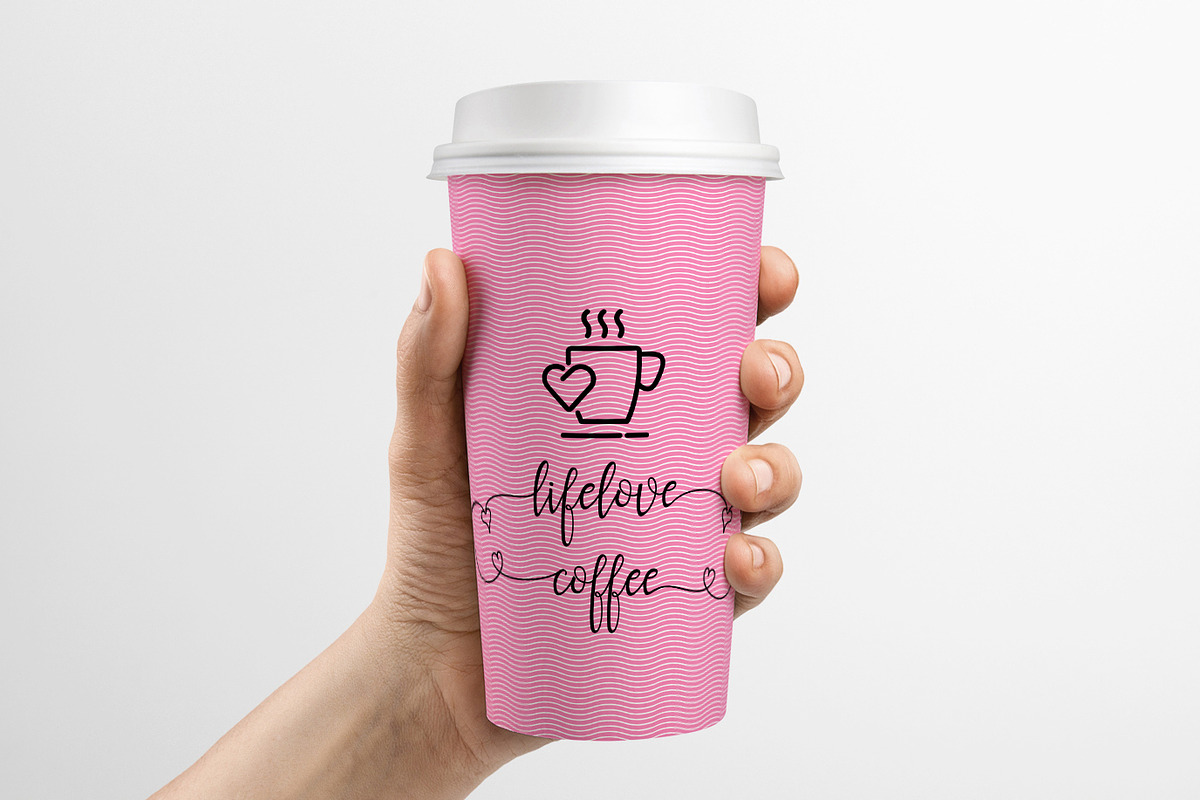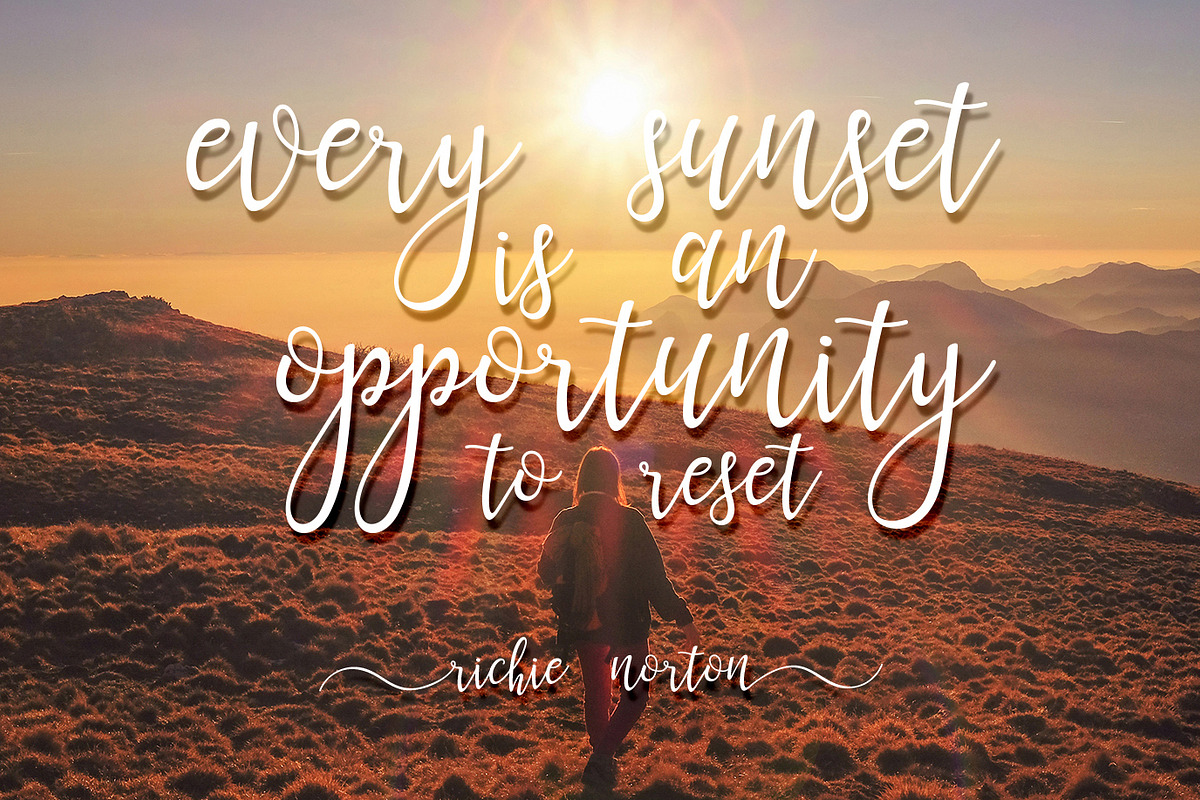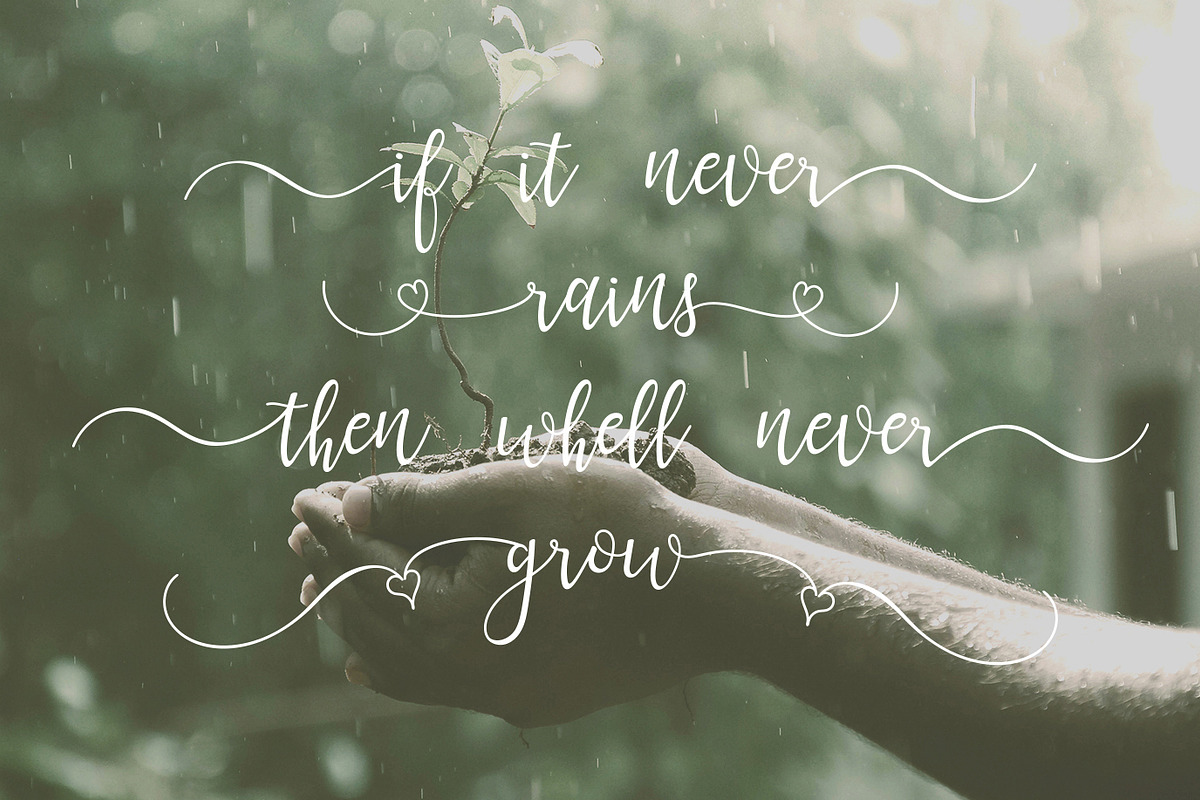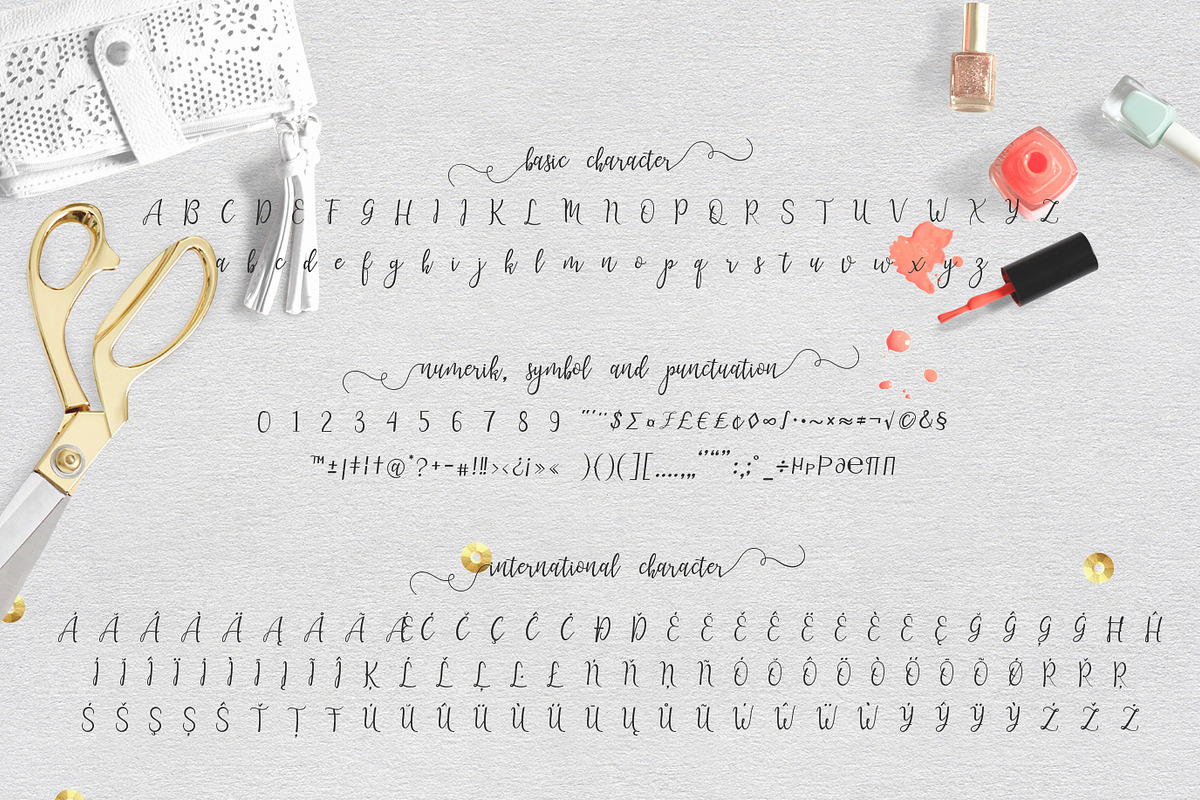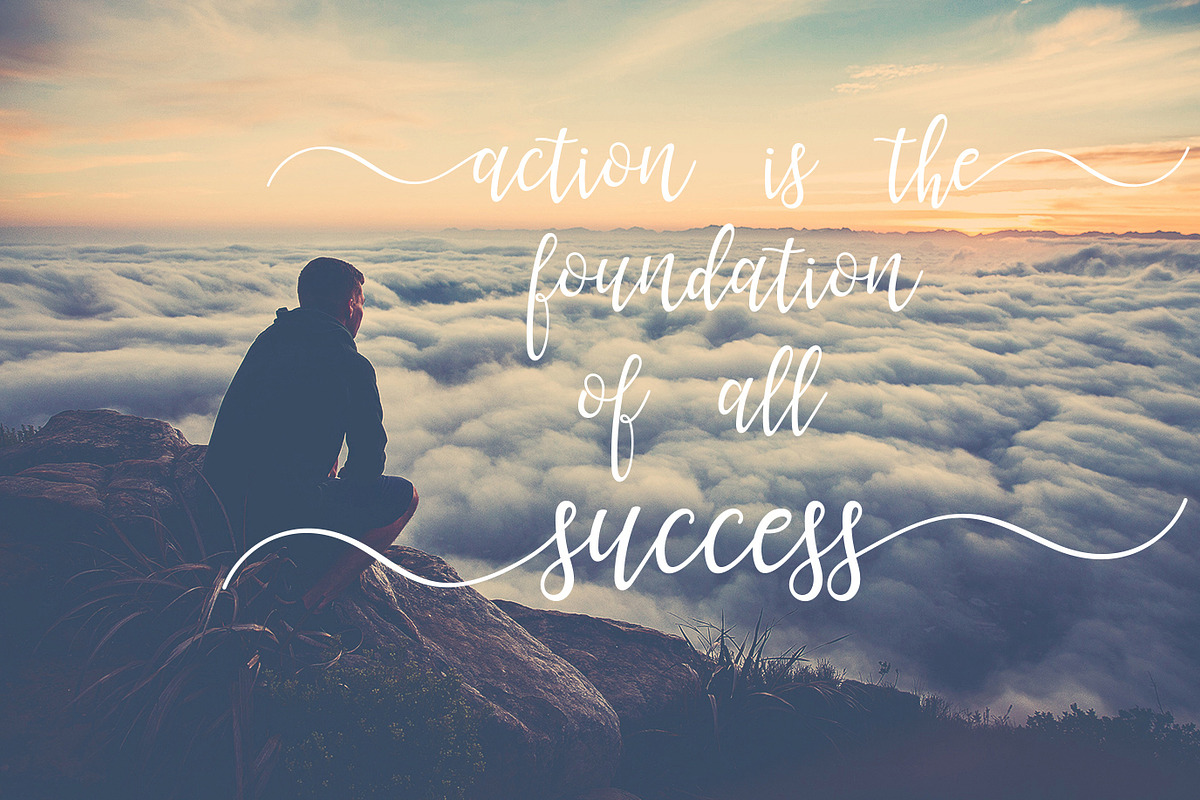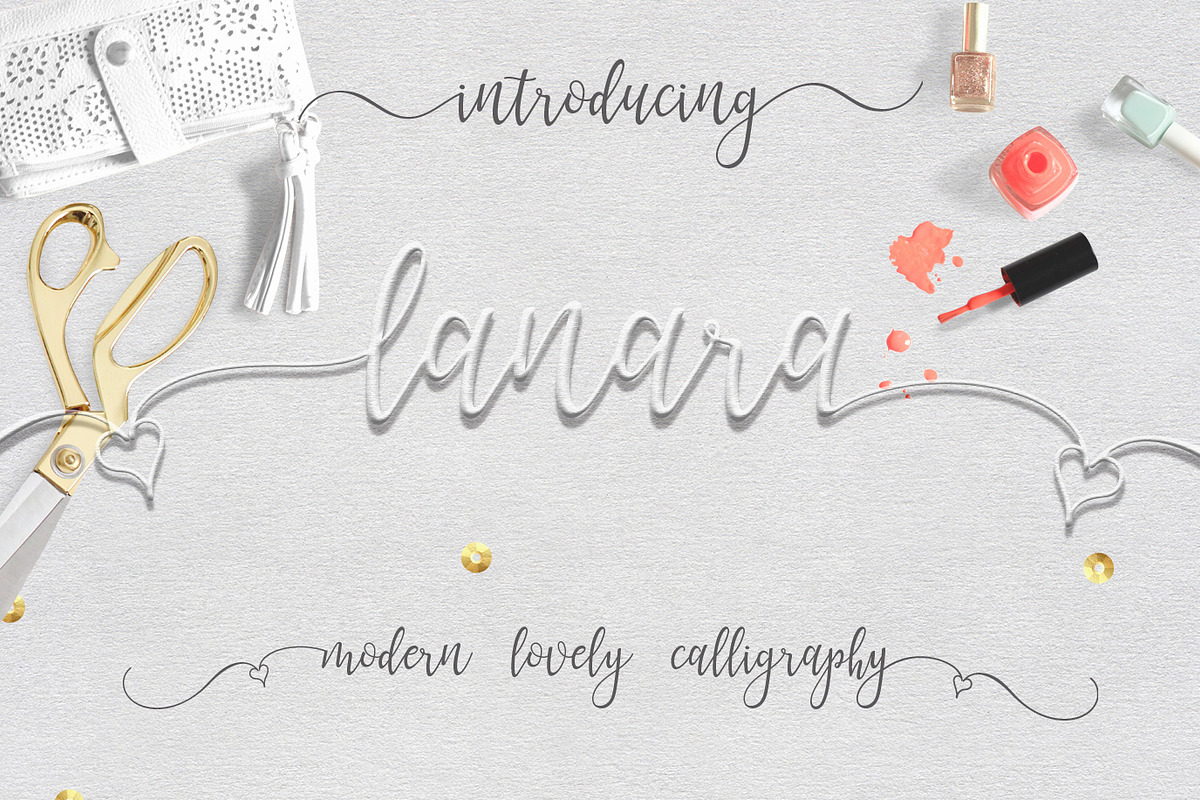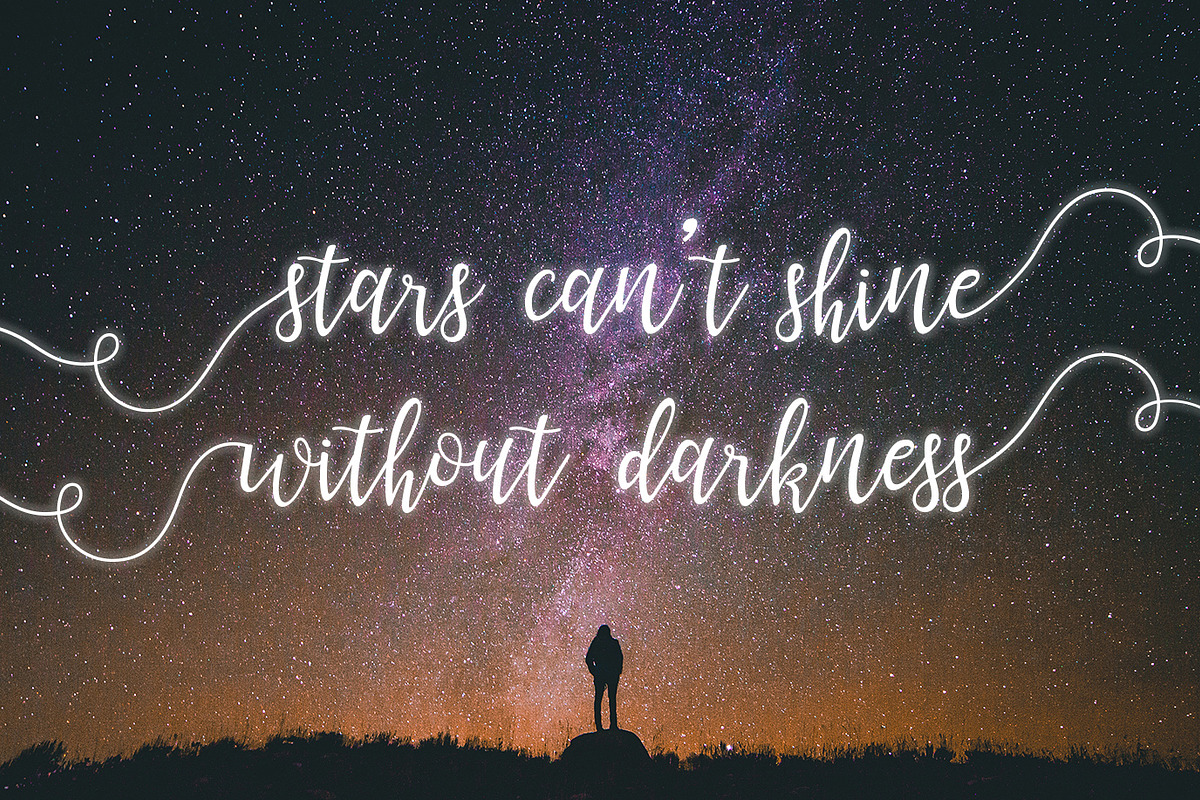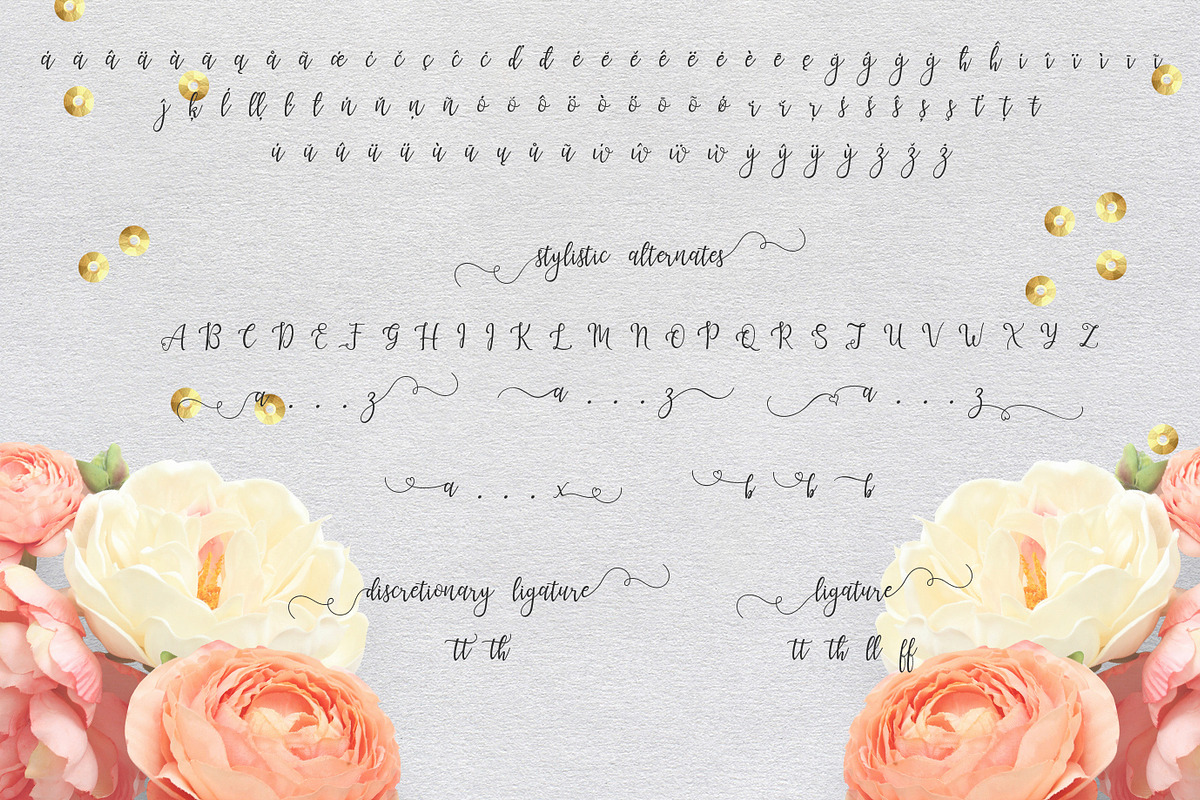
Lanara Script Font
Lanara Script Font by AQR Studio is a font selected for branding, posters, packaging, typography.
- Lanara Script features with : Basic Glyphs, Numerals, Symbol and punctuation Stylistic Sets 1 - 10 Stylistic Alternates Ligatures and Discre
Lanara Script Font by AQR Studio fits naturally into Branding, posters, packaging, typography.